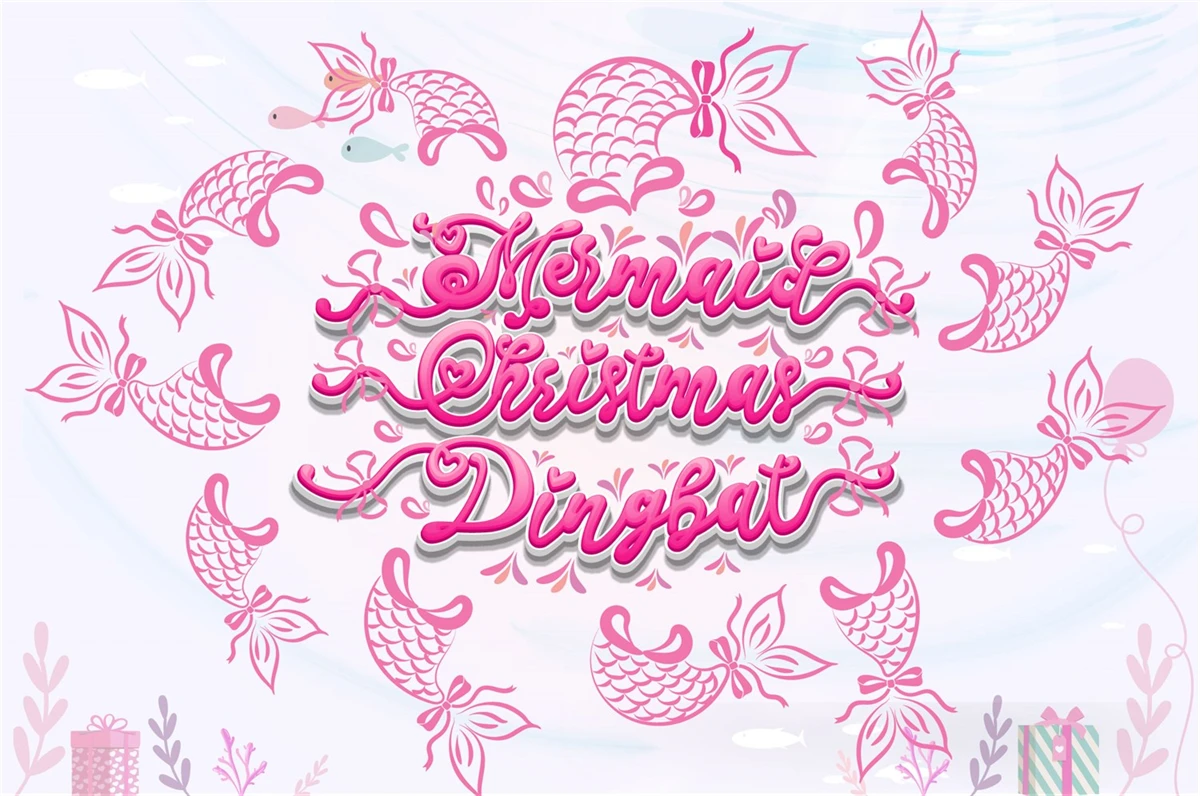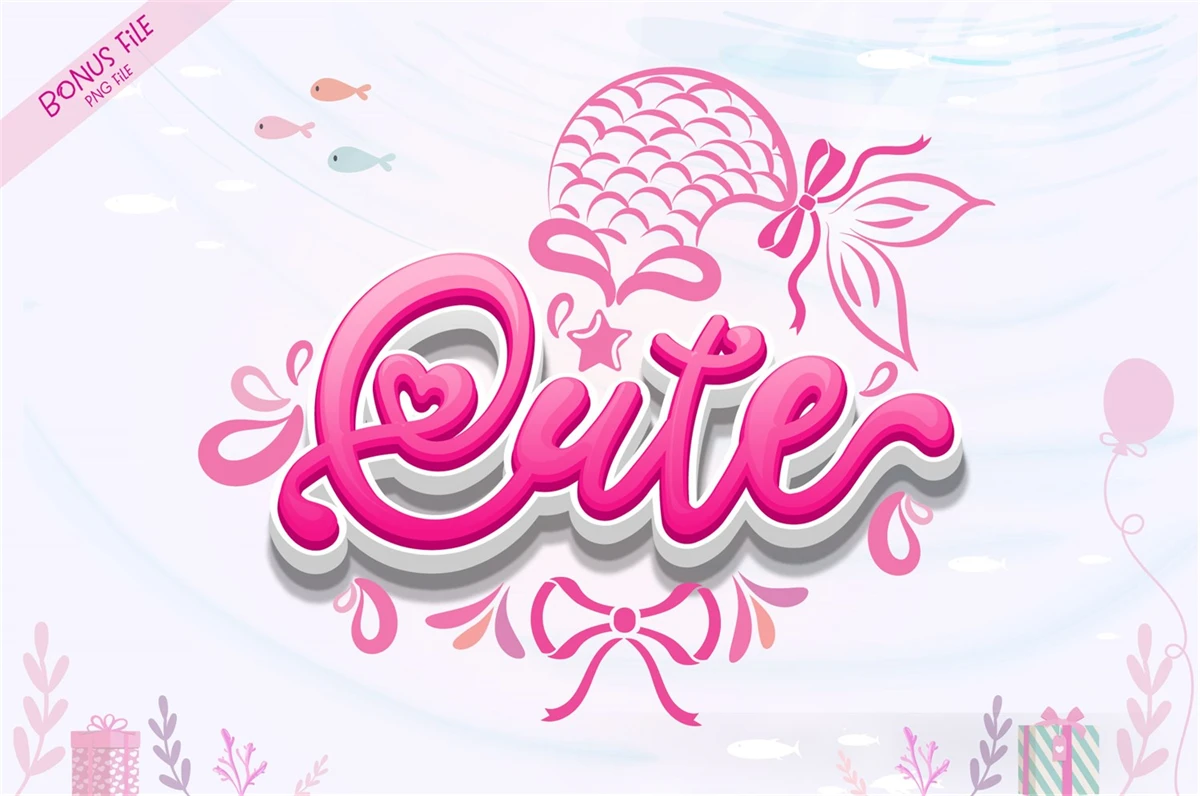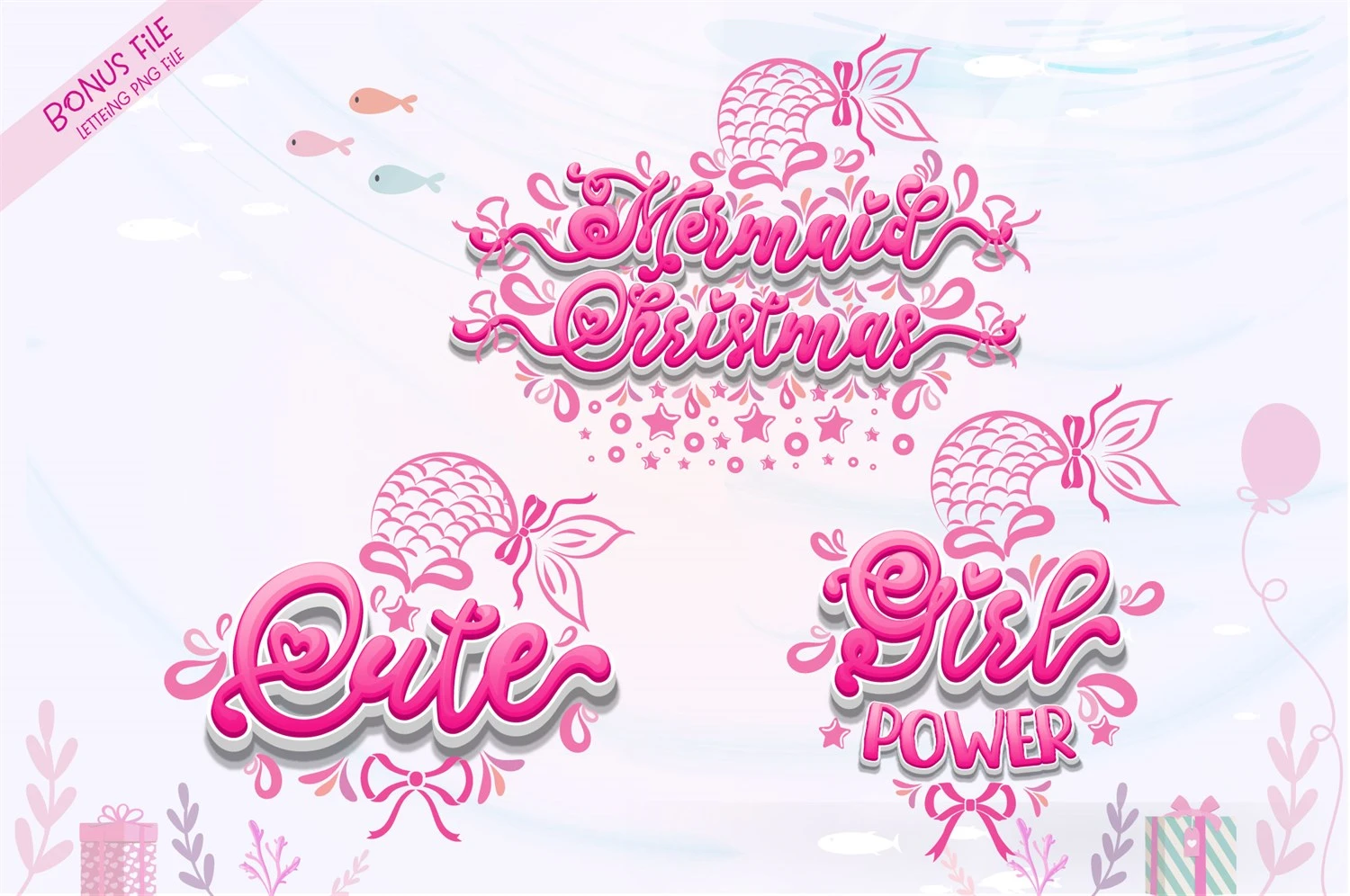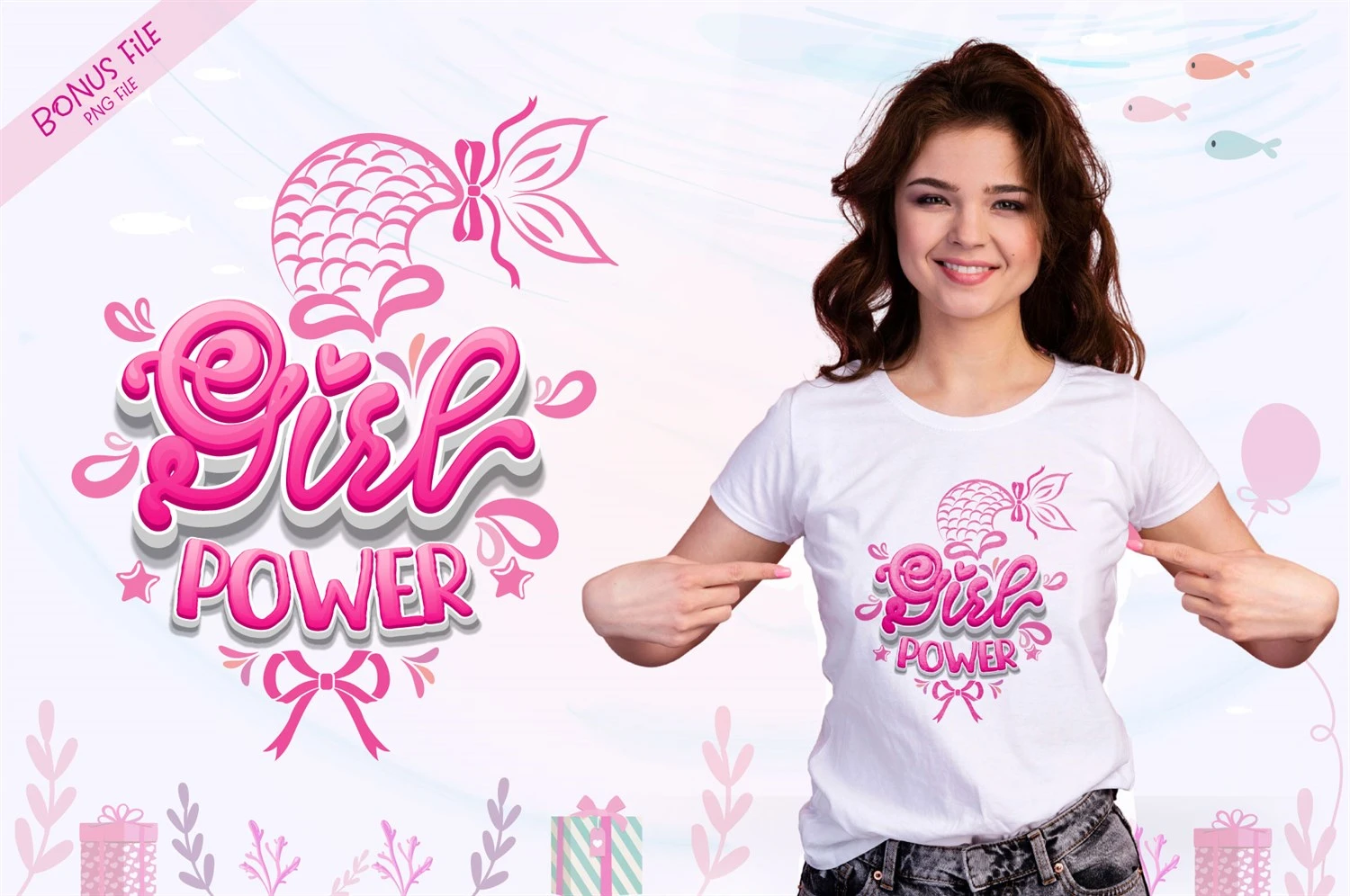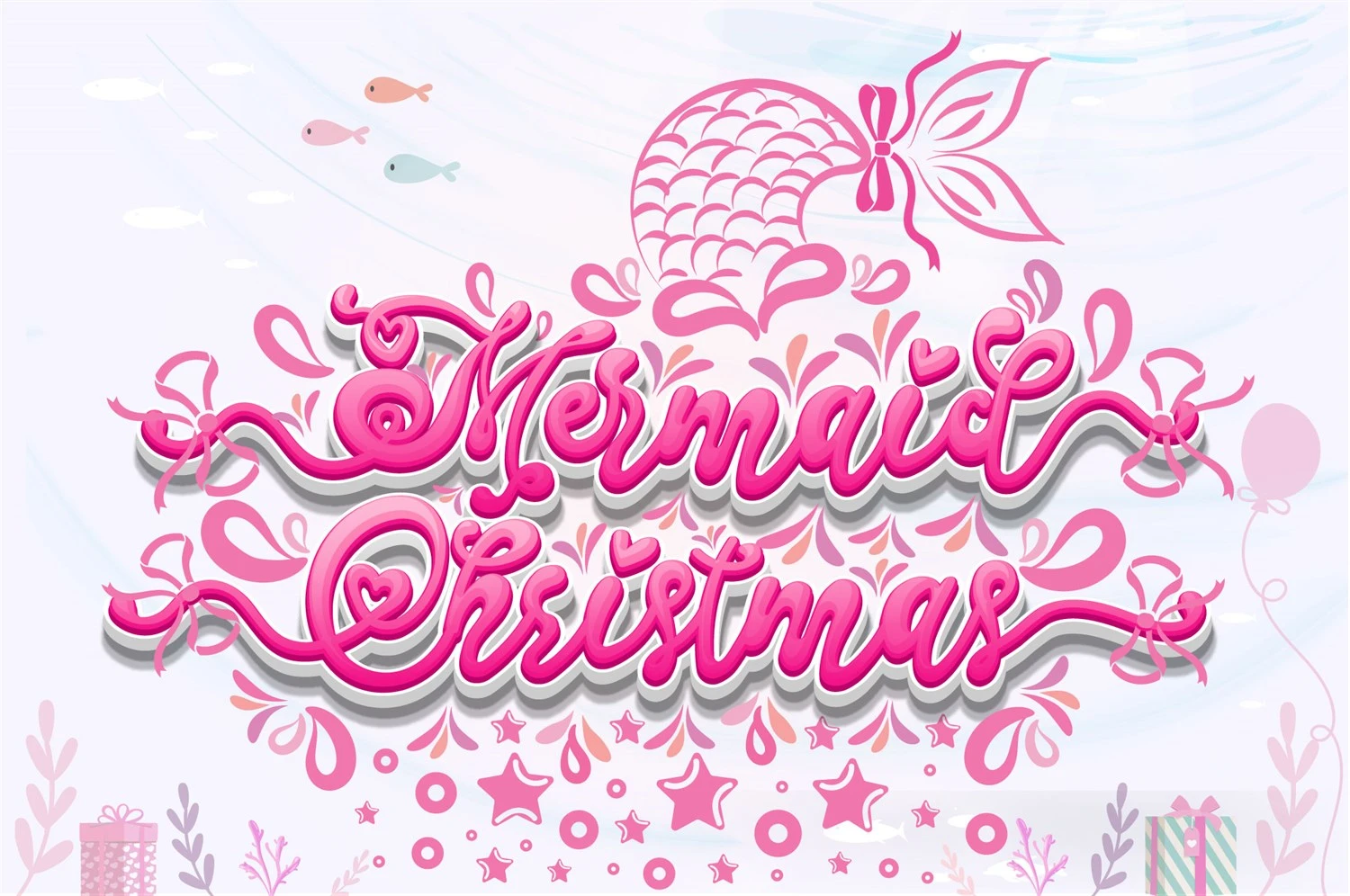
Introducing Mermaid Christmas Font, the perfect addition to your festive designs! This font duo features two complementary fonts that work harmoniously together, or separately, to bring a chic and cheery vibe to your crafts. With its PUA encoding, accessing all the glyphs and swashes is a breeze! Spread the holiday spirit with this versatile font and make your creations truly magical.
Mermaid Christmas Font